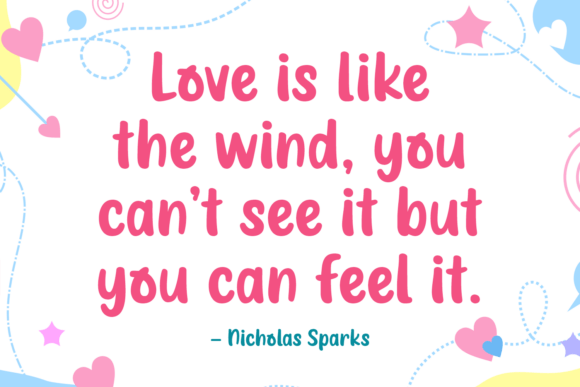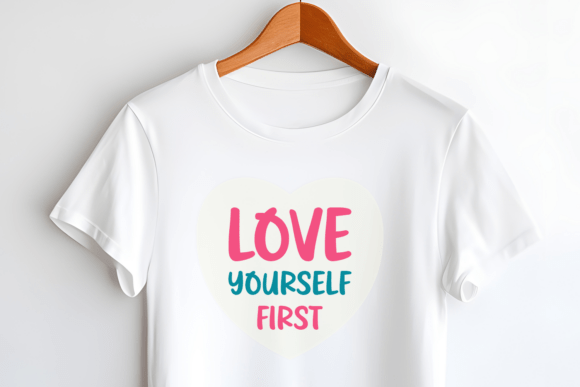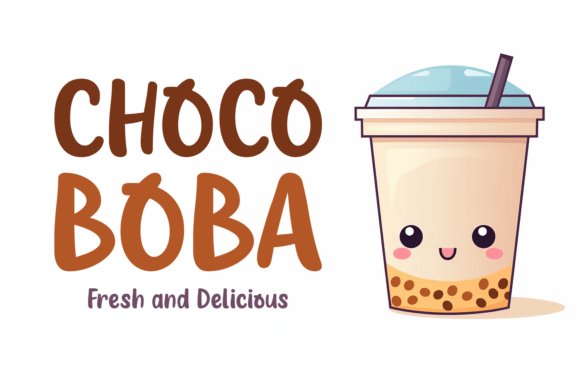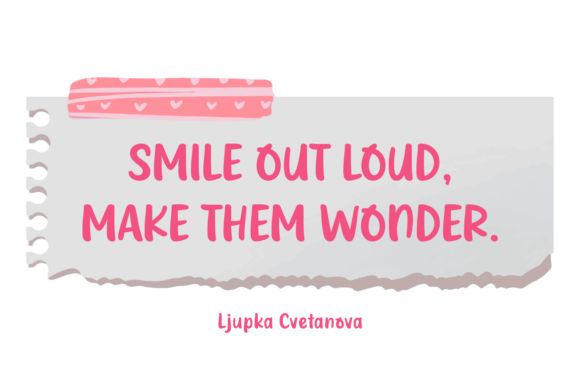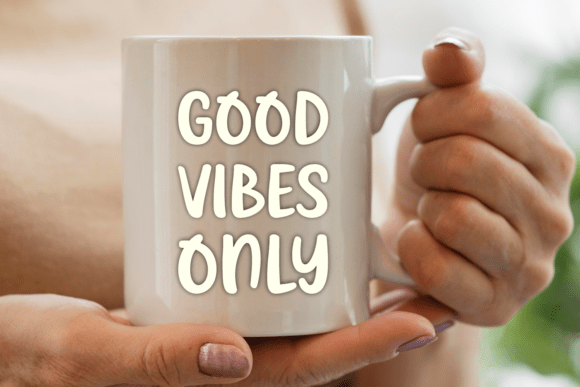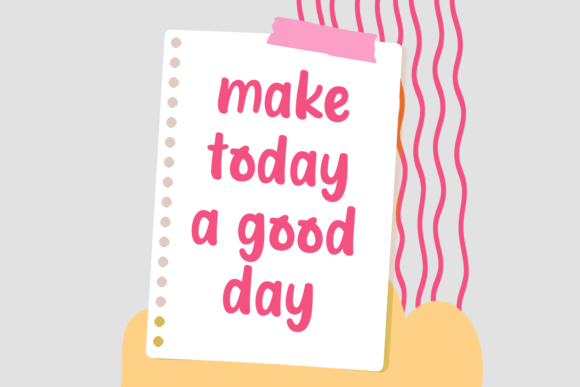
Introduction to Hope Care Font Font
Fonts play a crucial role in design, and the Hope Care Font font is a typeface that brings both character and versatility to any project. Whether you’re working on a branding project, a website, or a print design, the Hope Care Font font offers a unique style that can elevate your work.
Hope Care is a vibrant and playful handwritten font that radiates optimism and joy.
With its rounded, casual letterforms and vivid color variations, this typeface is perfect for projects aimed at children, charity campaigns, and wellness brands The smooth, organic curves give it a friendly and approachable feel, while the bright, cheerful colors add an energetic spark.
Key Features of Hope Care Font Font
Why Choose Hope Care Font Font?
The Hope Care Font font is more than just a typeface – it’s a design tool that helps you communicate your message with style and clarity. Its unique character set and versatile design make it suitable for a wide range of applications, from elegant invitations to bold headlines.
With its carefully crafted letterforms and balanced proportions, the Hope Care Font font ensures readability and visual appeal across all mediums.
What makes Hope Care Font font special?
The Hope Care Font font stands out with its unique design, exceptional readability, and versatility across various design applications.